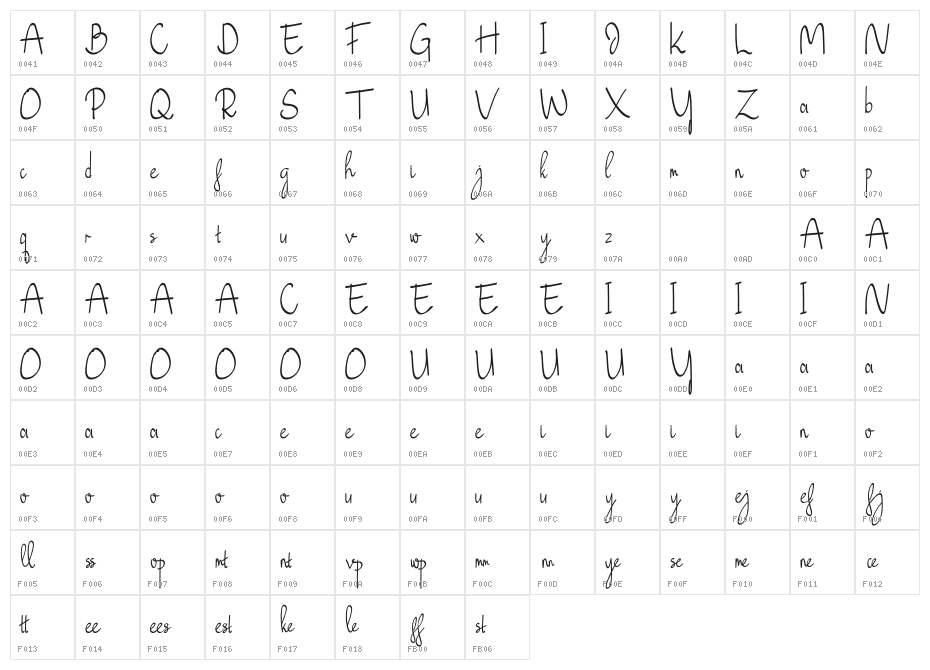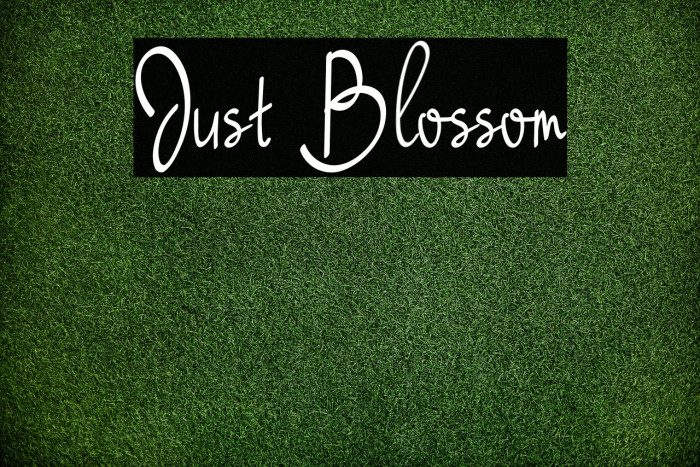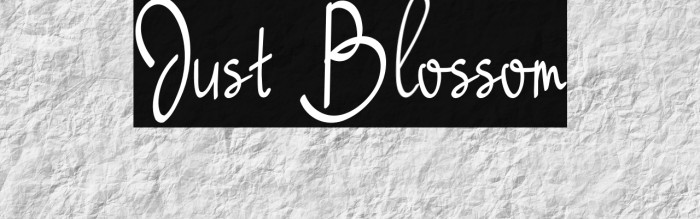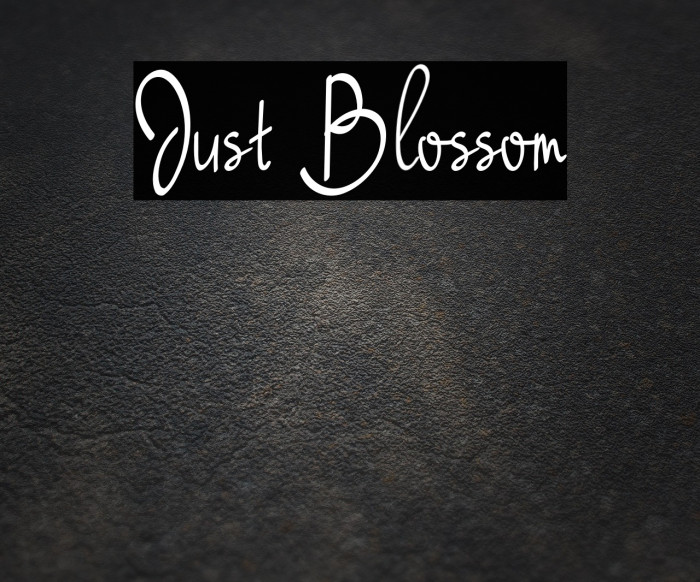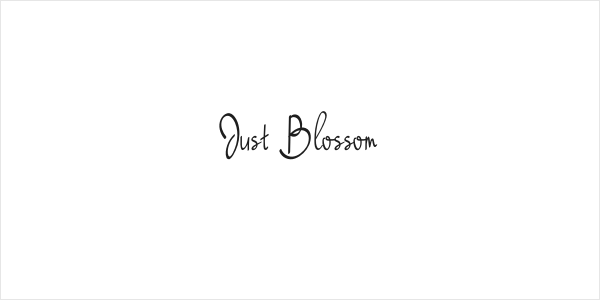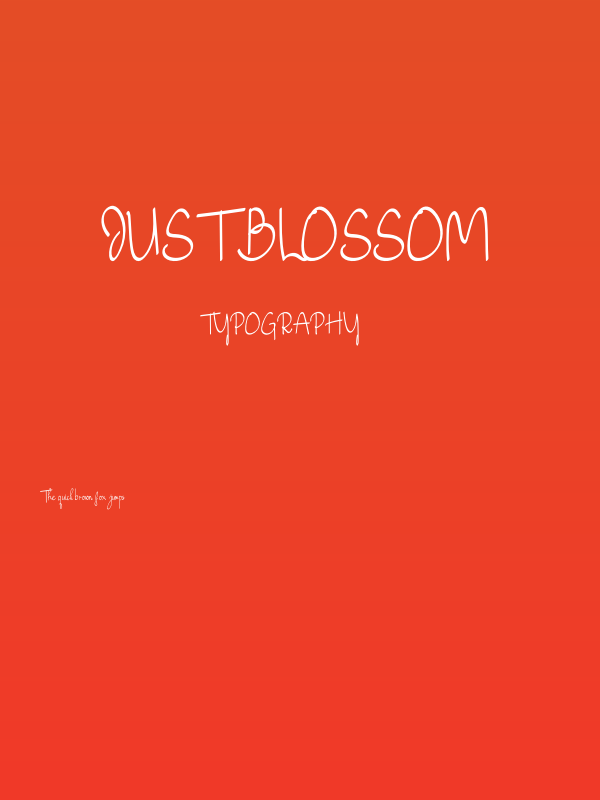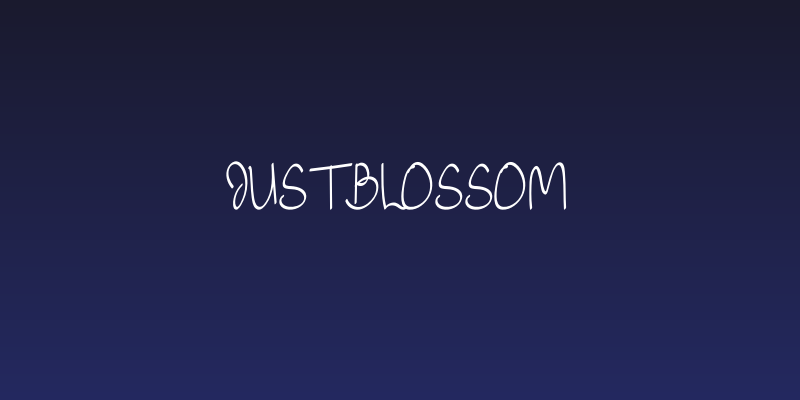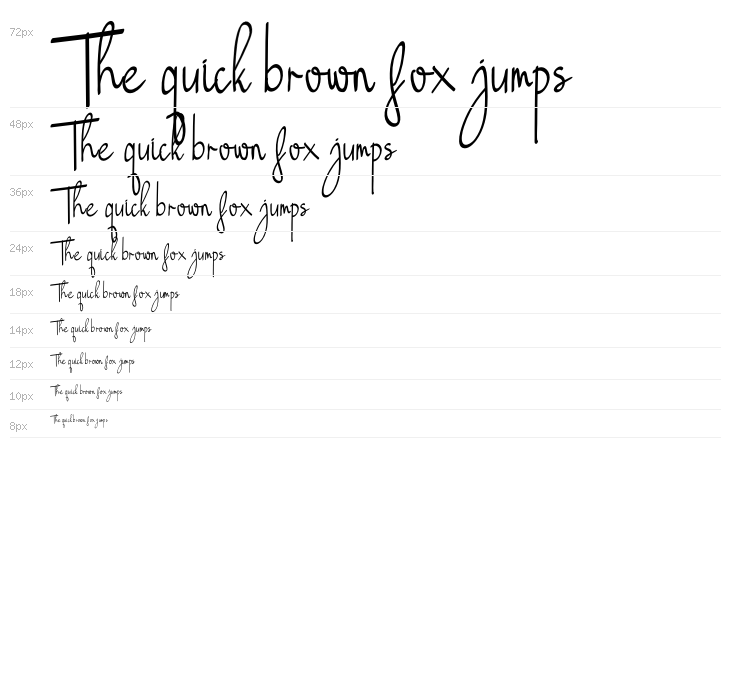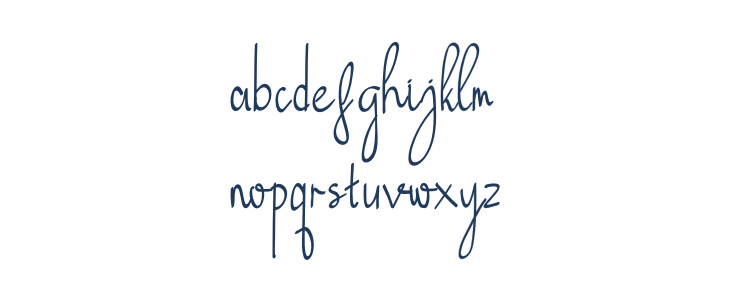
Just Blossom Font
Just Blossom Description
This font features a playful and whimsical handwritten style, characterized by its flowing and slightly irregular letterforms. The uppercase letters are tall and slender, with a slight slant that adds a dynamic feel. The lowercase letters are more fluid, with some characters extending below the baseline, enhancing the casual and artistic appearance. The strokes are consistent in width, giving the font a uniform look, while the overall design maintains a sense of spontaneity and creativity. This font is ideal for projects that require a personal touch, such as invitations, greeting cards, or creative branding.